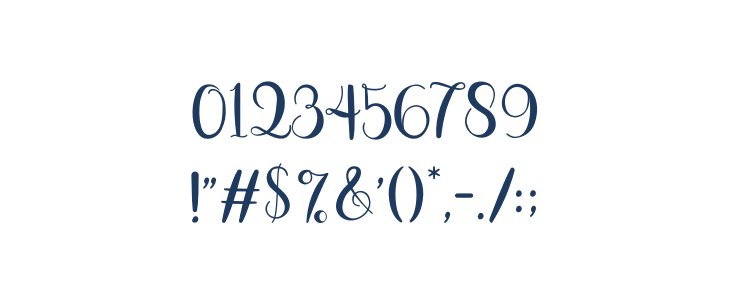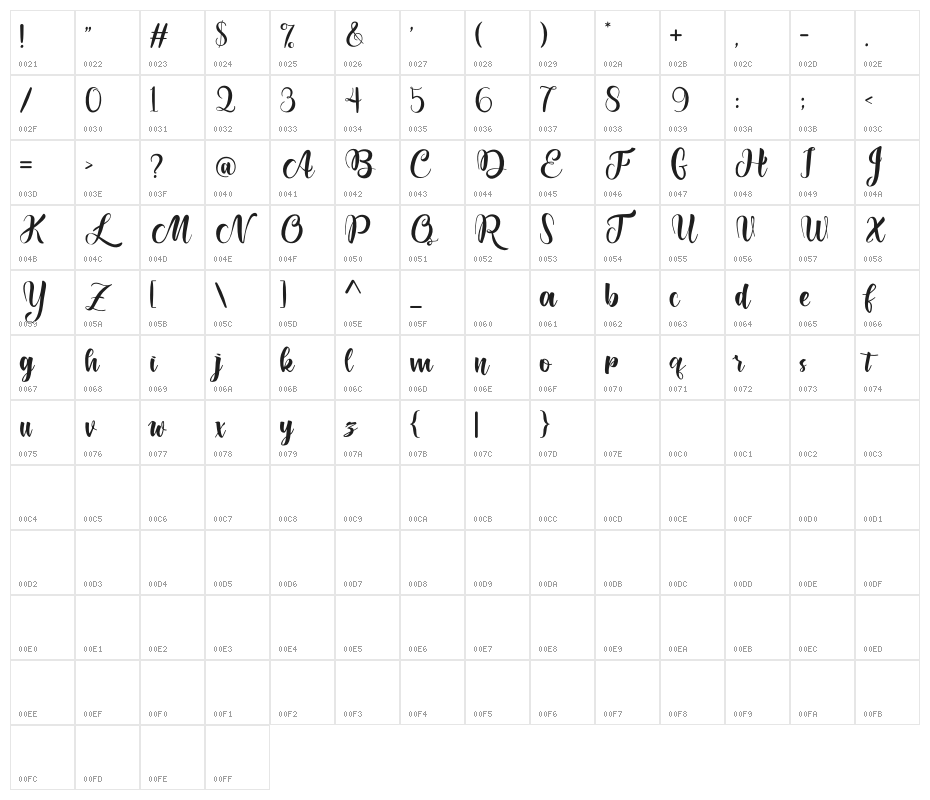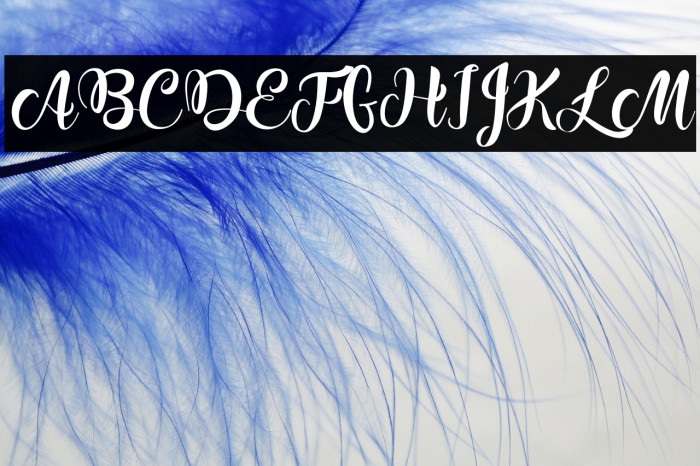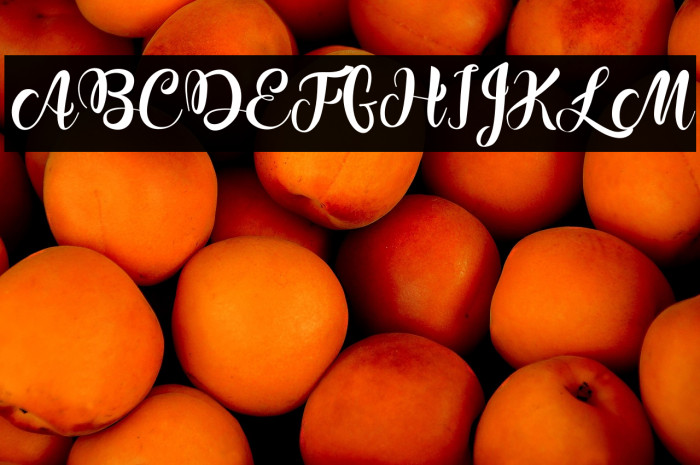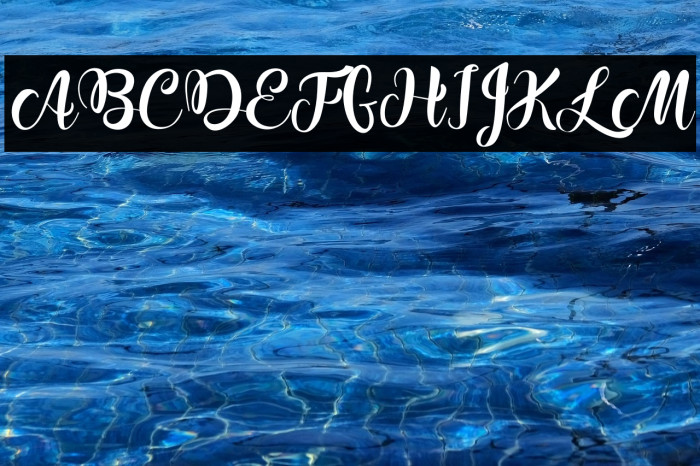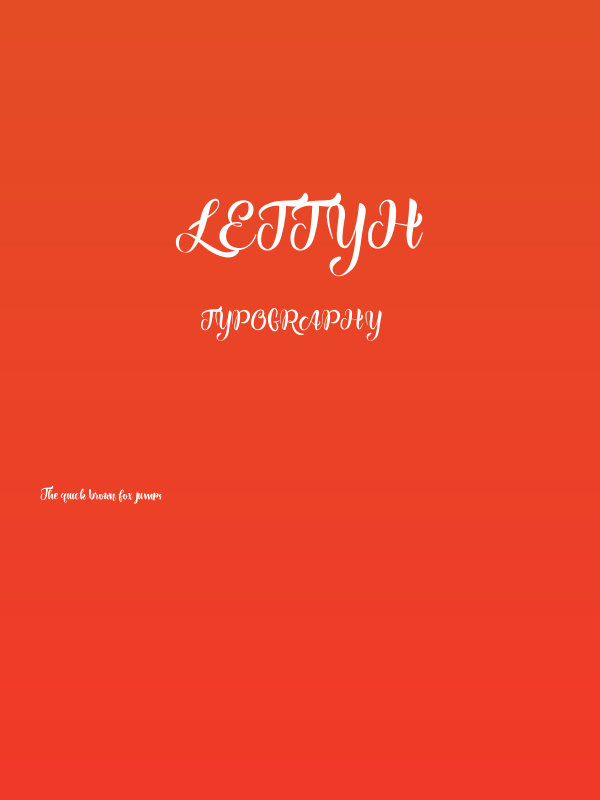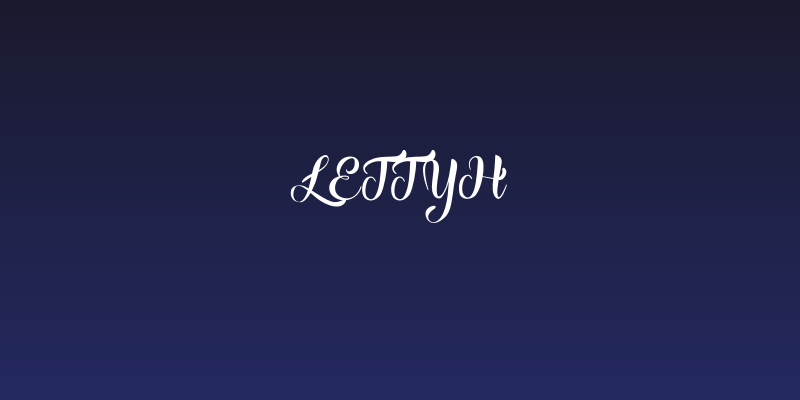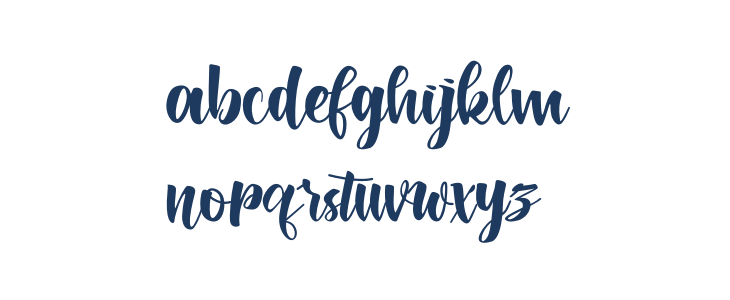
Lettyh Font
Lettyh Description
This font features a dynamic and flowing script style with elegant curves and flourishes. The uppercase letters are characterized by their ornate loops and swashes, giving them a sophisticated and artistic appearance. The lowercase letters maintain a consistent flow, with some characters extending below the baseline, adding to the font's graceful aesthetic. The numerals are designed with a similar flair, incorporating subtle curves that complement the overall style. Special characters are crafted with attention to detail, ensuring they blend seamlessly with the alphabet. This font exudes a sense of creativity and elegance, making it ideal for projects that require a touch of sophistication.
| Proposed Projects | Ideal for wedding invitations, branding, greeting cards, and elegant packaging designs. |